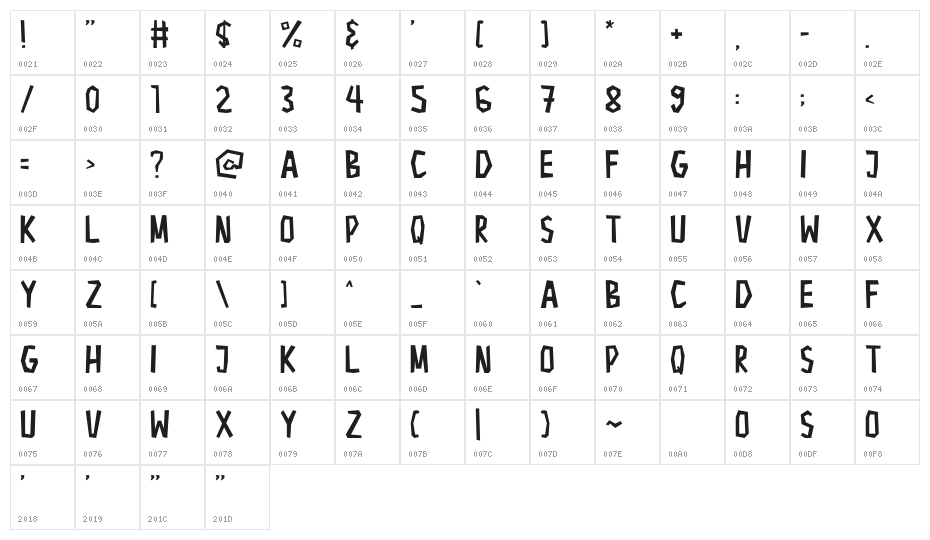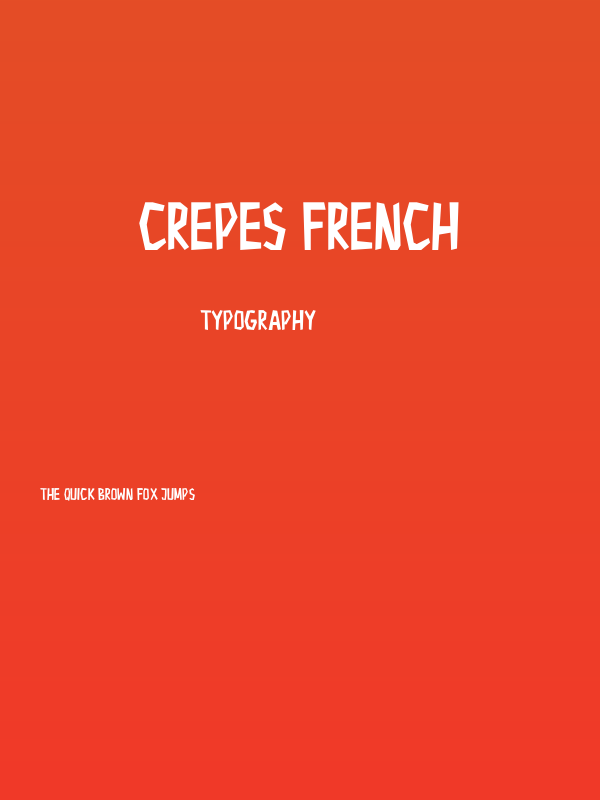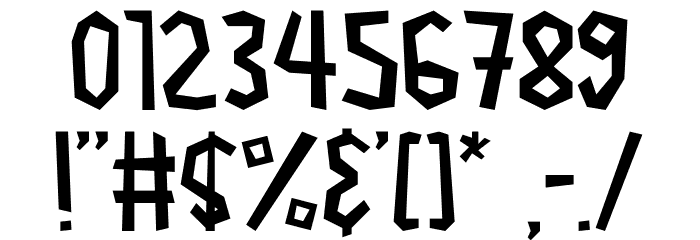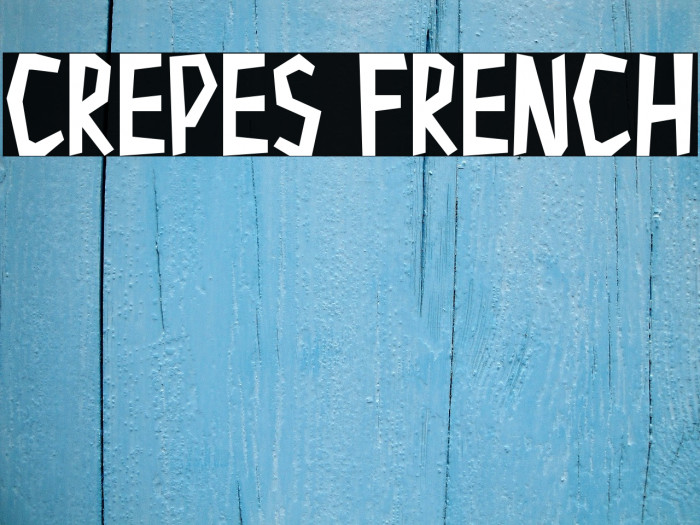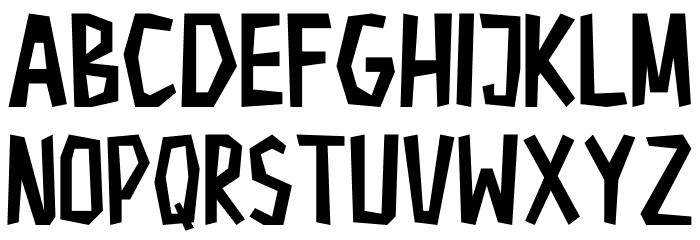
Crepes French Font
Crepes French Description
This font features a bold and angular design, characterized by its sharp edges and geometric shapes. The letters are slightly irregular, giving it a hand-drawn, dynamic feel. The uppercase and lowercase letters maintain a consistent style, with a strong presence and a playful yet edgy appearance. The numbers and special characters follow the same aesthetic, ensuring uniformity across all elements. This font is ideal for projects that require a bold statement and a modern, artistic touch.
| Overall Style | Modern, Artistic |
| Proposed Projects | Ideal for posters, album covers, branding, and any project needing a bold, artistic flair. |